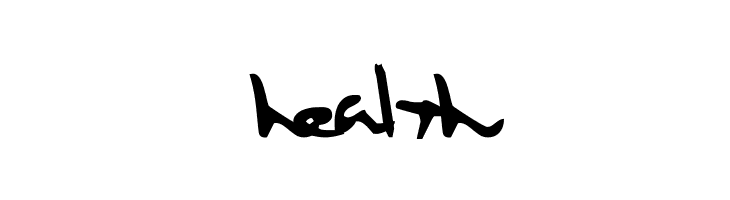
SnowCaps Font
A bold, decorative font with snow-capped letters for a festive look.
CarbonBl-Regular Font
Font by www.typodermicfonts.com - Ray Larabie
A bold, modern font with a strong and impactful design.
RakeslyRg-Regular Font
Dharma Type
RakeslyRg-Bold Font
Måns Grebäck
A bold, modern font with thick, uniform strokes and a strong visual impact.
UVN Ke Chuyen1 Font
Cat B
An elegant script font with flowing, cursive letterforms and classic sophistication.
UVN Ke Chuyen3 Font
Måns Grebäck
An elegant script font with flowing, cursive letters and intricate swashes.
Pistara Font
A modern, geometric sans-serif font with a clean and minimalist style.
Lakesight Personal Use Only Font
Måns Grebäck - www.mansgreback.com
A bold, cursive font with elegant, flowing lines and decorative flourishes.
UVN Ke Chuyen2 Font
177Studio.com
An elegant script font with flowing, cursive style and intricate swashes.
Aron Grotesque Bold Font
Vanessa Bays
A bold, modern sans-serif font with geometric shapes and uniform strokes.
BandaRegular Font
Font by www.typedepot.com
A modern, rounded sans-serif font with a friendly and approachable style.
Aron Grotesque Regular Font
Brittney Murphy
A clean, geometric sans-serif font with consistent stroke width and high legibility.
RakeslyBk-Regular Font
Måns Grebäck
A modern, clean sans-serif font with a sleek, professional appearance.
Tenbitesch Font
Font by Kreative Korporation - www.kreativekorp.com
A playful, hand-drawn font with curly, whimsical elements.
Trocchi-Bold Font
A bold serif font with strong vertical strokes and slightly curved serifs.
RakeslyLt-Regular Font
Kimberly Geswein
A modern, tall, and narrow sans-serif font with clean lines and balanced spacing.
SansibarCX-Condensed Font
A modern, condensed sans-serif font with a clean and professional look.
Sixth Kristen Squirt Font
Font by Kreative Korporation - www.kreativekorp.com
A bold, playful handwritten font with dynamic strokes.
RakeslyEl-Regular Font